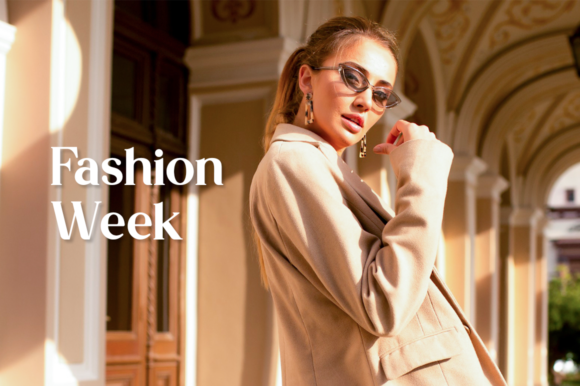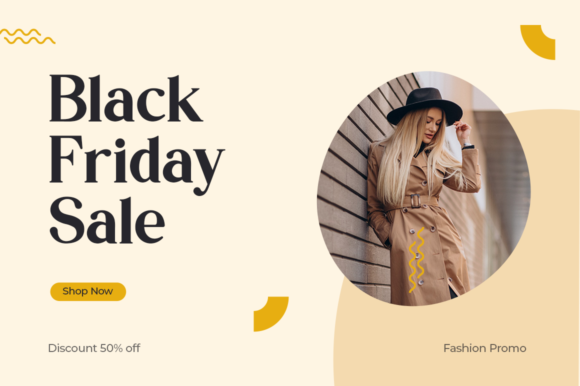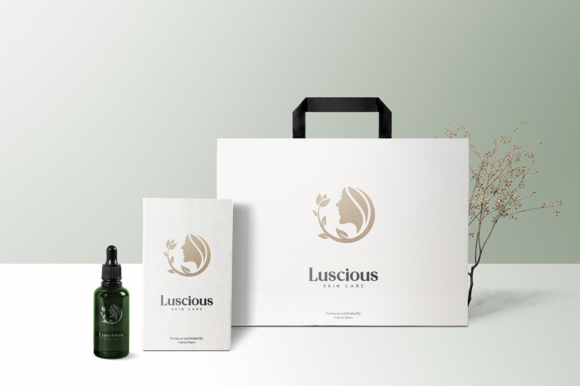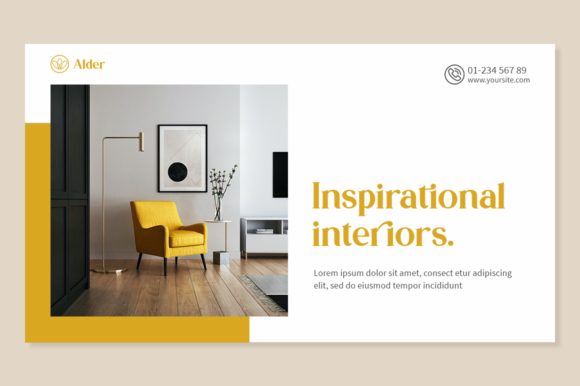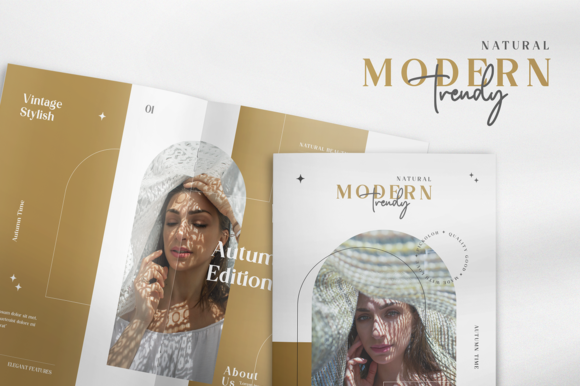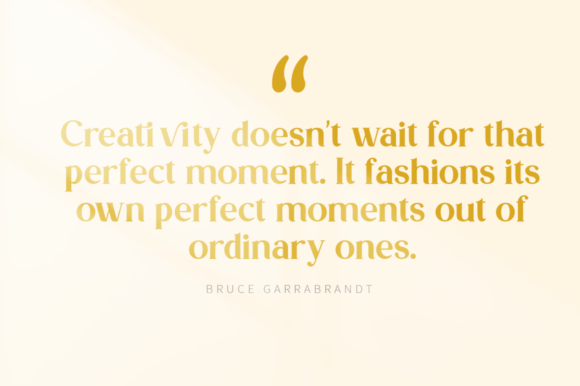
Introduction to Patriona Font
As designers, we’ve all been there – staring at a blank canvas, trying to bring our creative vision to life. The perfect font can make all the difference. For those seeking a high-quality serif font that exudes elegance and authenticity, the Patriona Font is a game-changer.
Imagine having a versatile design resource that can elevate your creative project to new heights. With its masterfully designed characters and clean lines, the Patriona Font is the perfect companion for any designer looking to create stunning visuals. Whether you’re working on a project with a transparent background or need a font for a specific design element, Patriona Font has the potential to bring your ideas to the highest level.
Key Features of Patriona Font
- High-quality design for creative projects, ideal for digital art and graphic design.
- Unique characteristics include its elegant and sophisticated style, making it suitable for a variety of design applications.
Honest Review: Patriona Font
As a designer, I’m always on the lookout for high-quality design resources that can elevate my creative projects. The Patriona Font is one such resource that caught my attention. I was excited to dive in and see what it had to offer.
- Unique and elegant design style that can add a touch of sophistication to any project
- Limited character set, which may not be suitable for extensive text-based projects
- May not be as versatile as some other fonts in terms of styling and customization options
Overall, I’m impressed with the Patriona Font’s design quality and the value it offers. While it may have some limitations, it’s a great addition to any designer’s toolkit, especially for creative projects where a unique and elegant touch is needed.
Tips for Getting the Most Out of Patriona Font
To get the most out of the Patriona Font, use it in conjunction with other design elements, such as graphics or images, to create a visually appealing design. You can also experiment with different font sizes and colors to achieve the desired effect.
The Patriona Font is suitable for a variety of creative projects, including social media graphics, presentations, and marketing materials. It’s also a great resource for designers looking for a free download of a high quality font with a transparent background.